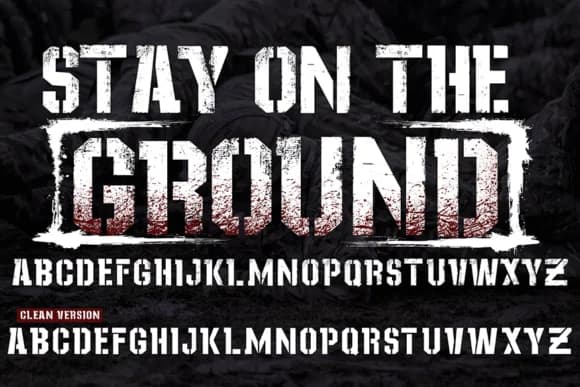
You're designing an album cover for a hardcore band, and you need typography that cuts through the noise. Enter Stay on the Ground, a commanding slab-serif from CconceptLab Digitals engineered for maximum visual impact and industrial credibility. This brush-textured typeface combines raw weight with deliberate distressing, making it a natural fit for bold, unapologetic design work across multiple applications.
The font performs exceptionally well on album artwork and merchandise, tattoo studio signage and flash designs, metalworking company branding, and streetwear logos that demand serious attitude. Its intentional distressing and stroke variation give designs an authentic, hand-made quality without compromising legibility, even when pushed to large display sizes. The texture reveals character and dimension the closer you examine it, rewarding close inspection.
What truly sets it apart is the flexibility to push the distress or pull back depending on your creative direction. Run it heavy and raw for maximum visual grit, or access the cleaner rendering for applications needing that grounded foundation without maximum wear. Stay on the Ground is ready to download from Creative Fabrica whenever your next bold project requires exactly this kind of commanding presence.
Stay on the Ground Font is a slab serif font that shines as a display or heading face. Pair it with a clean sans-serif or serif font for body text β the contrast creates a clear hierarchy while the two styles stay balanced and easy to read.